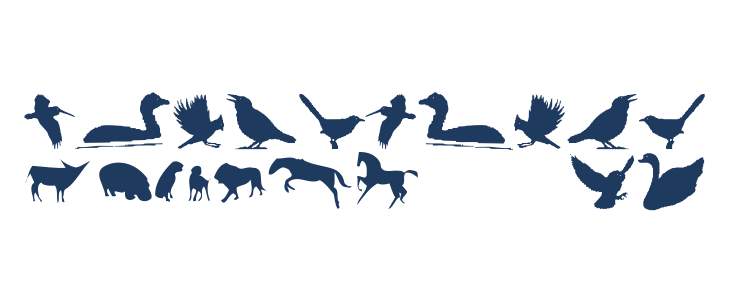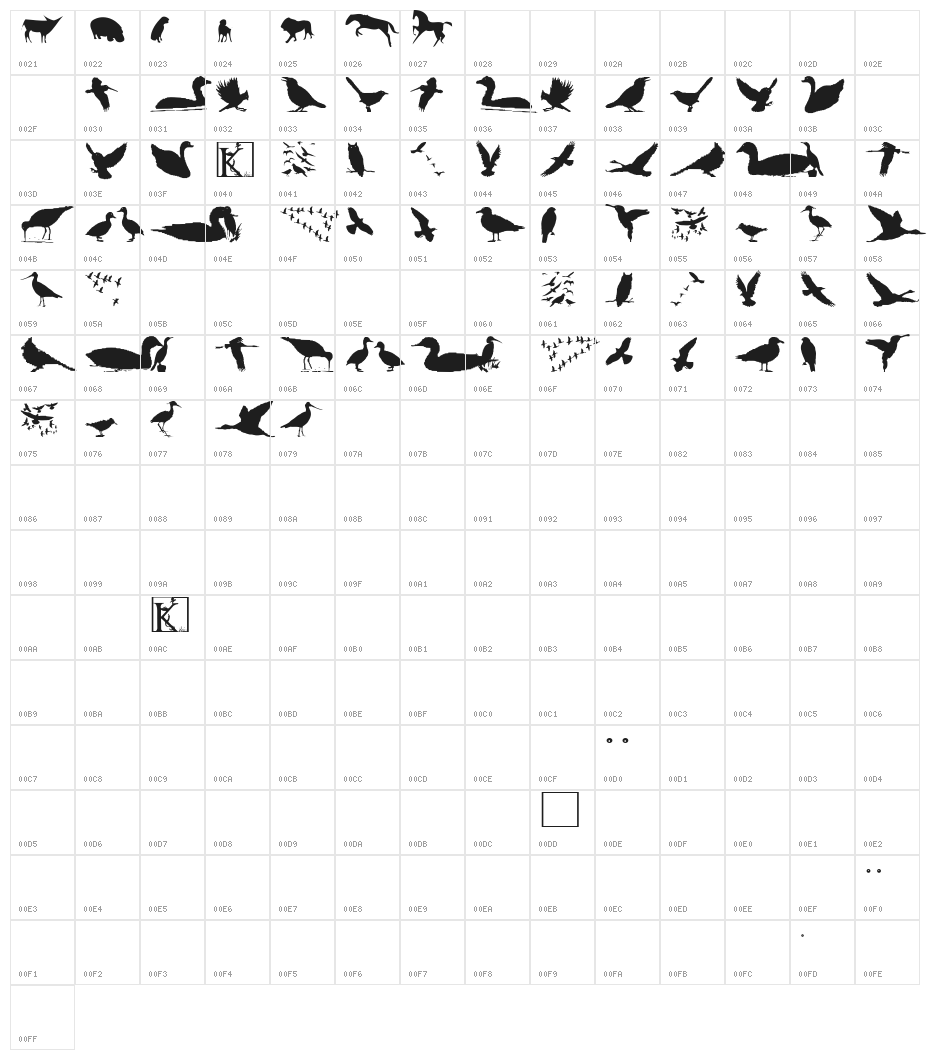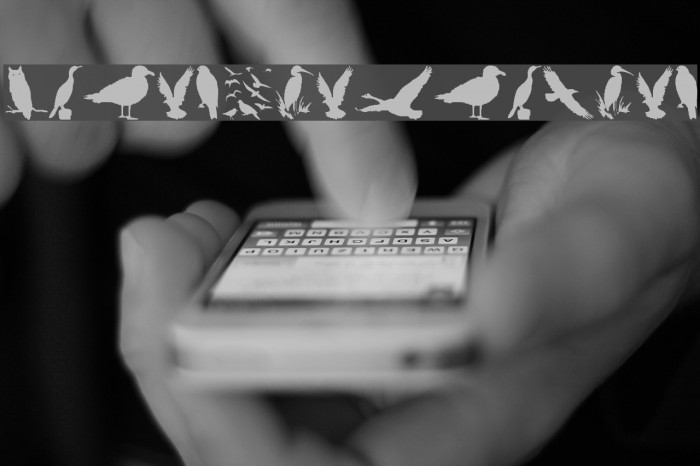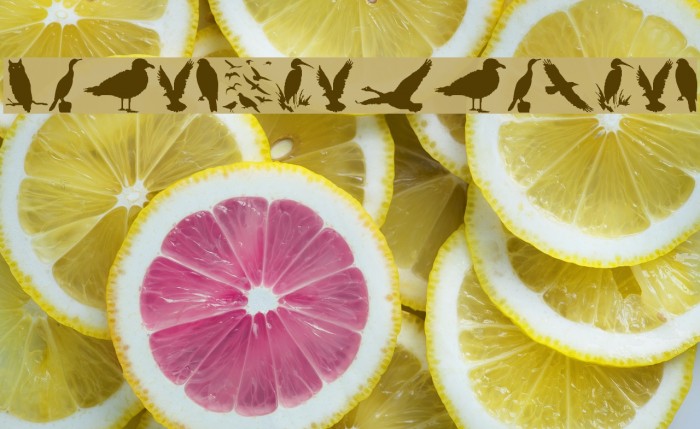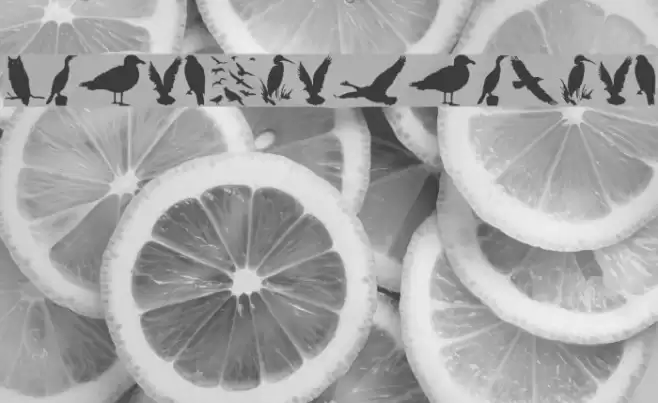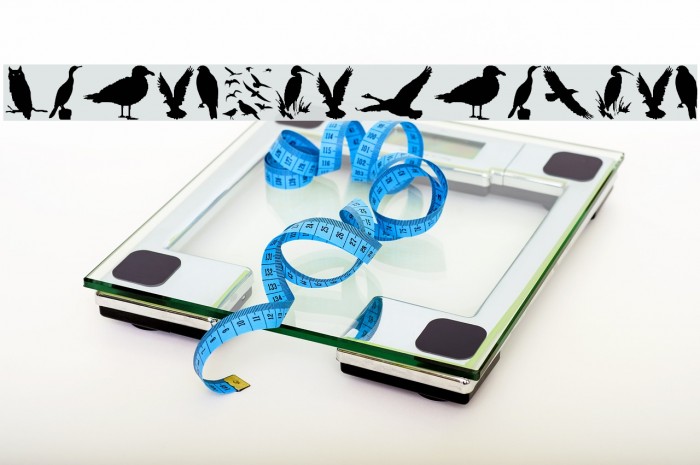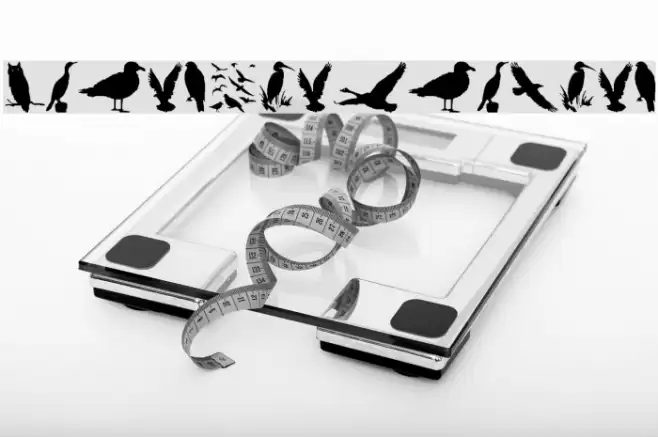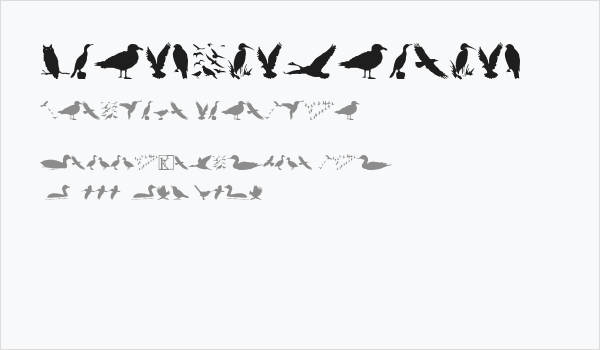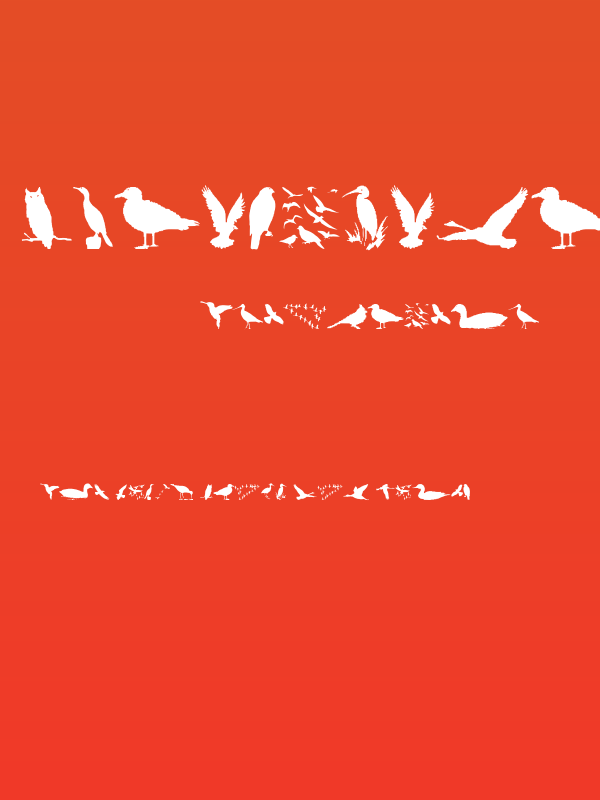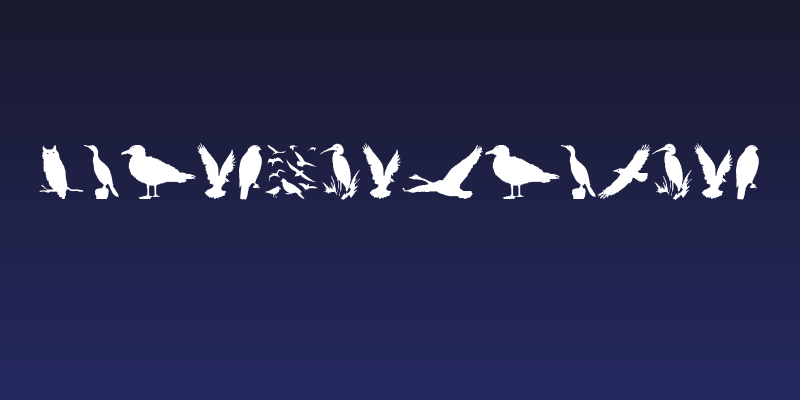
BirdsAndFriends Font
BirdsAndFriends Description
A collection of animal silhouettes, primarily birds in various poses and flight formations, with a few mammals included. The glyphs are solid black, highly stylized, and lack interior detail, focusing on recognizable outlines.
| Overall Style | Decorative, Nature-inspired |
| Use Case | Icons, Logos, Decorative elements, Thematic dividers |
| Proposed Projects | Nature-themed posters, educational materials, wildlife infographics, logo design, decorative headings. |